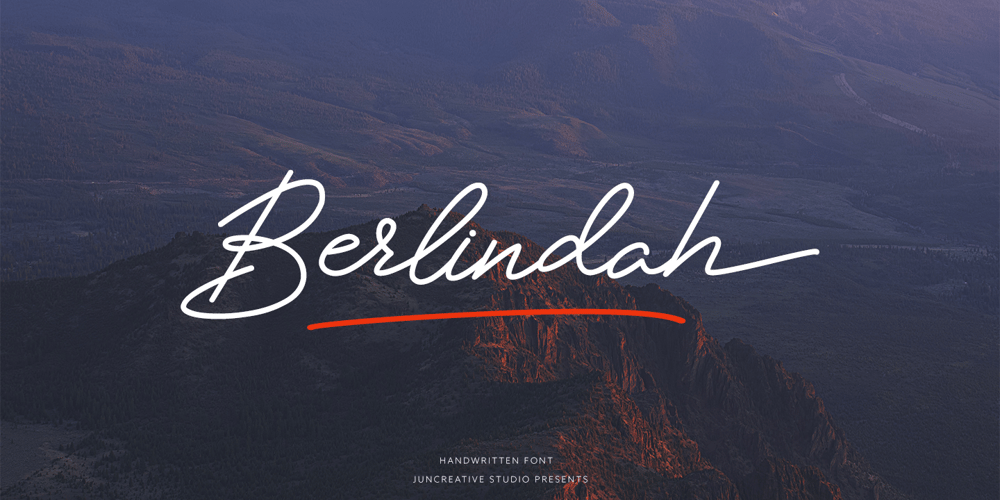
Berlindah Monoline Font Family was designed by Muhamad Junaid and published by Juncreative. Berlindah Monoline contains 1 styles and family package options. Berlindah Monoline is a new modern and fresh script with a handwritten style that makes this font looks elegant, natural, stylish and ideal for any awesome project that needs handwriting feel.Berlindah is perfect for branding projects, logos, wedding designs, social media posts, advertisements, product packaging, product designs, labels, photography, watermarks, invitations, stationery and more.